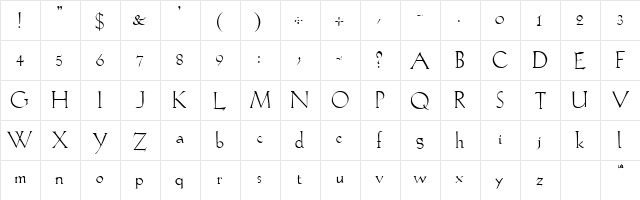
LilithLight Normal
Design Context for LilithLight Typeface
LilithLight offers clean, dependable letterforms without strong stylistic allegiance, making it a practical choice for designers who need flexibility. The delicate stroke weight brings airiness and refinement to layouts.
Pro Tip: Pair LilithLight with a font of contrasting weight or personality to build a more expressive typographic hierarchy.